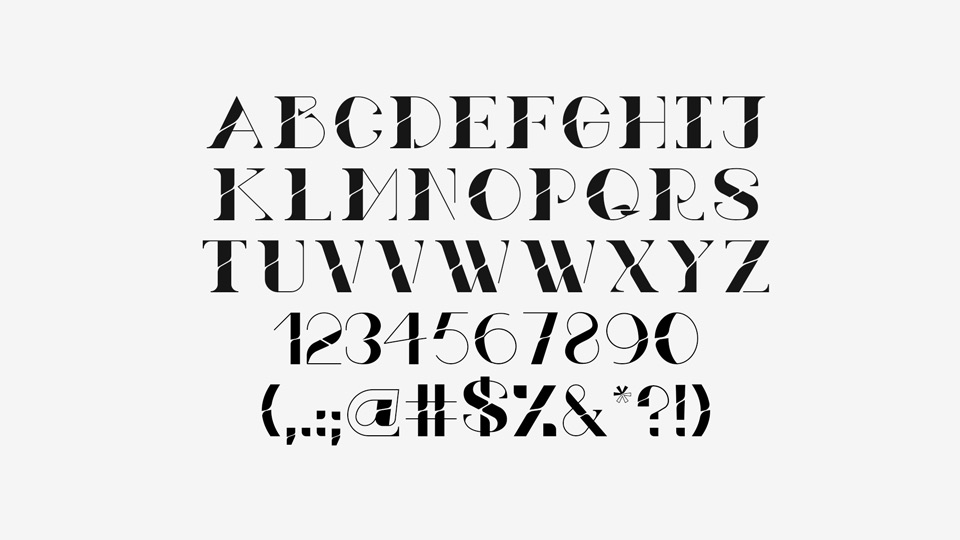
Zaniah is a display typeface comprising all letters of the alphabet and punctuation marks. Regarding its style or inspiration, it can be classified as a serif typeface that has Roman features due to its thick serifs and other thin ones, which makes it unique and special.
The cut in the wide part that gives it a soft, friendly, elegant and minimalist style that has curvatures at its tips to reaffirm these qualities, in the same way most of each character is thin to give it delicacy and elegance.
It was named in this way so that it would bear the name of one of the brightest stars in the constellation of Virgo.